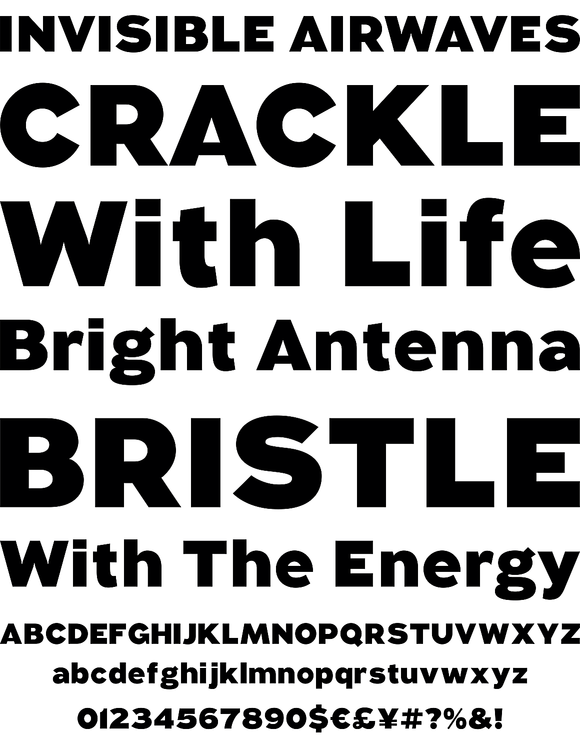
A modern classic. Augustus is a hefty sans serif that combines classical humanist elements and precise geometry. With racehorses and typography, lineage is everything, and Augustus is from good stock. The trained eye will detect a sprinkling of 19th centu...
A modern classic. Augustus is a hefty sans serif that combines classical humanist elements and precise geometry. With racehorses and typography, lineage is everything, and Augustus is from good stock. Karl Frankowski paired the charisma of Morris Fuller Benton's Eagle Bold with the flair of Zuzana Licko's Dogma. The trained eye will detect a sprinkling of 19th century wood type in there as well. He named Augustus after Augustus Gloop, that alarming glutton of a child infamously expelled from the Chocolate Factory.
Five years is a maddening amount of time to spend developing a single-weight typeface. That is how long it took one Karl Frankowski to release his first commercially available typeface and the attention to detail really paid off.
Augustus is now a complete international character set with a gang of whipped alternates. A half decade ago, however, it was 26 uppercase letters designed for a one-off poster. After hundreds of rounds of refinement, the rationalist that lives deep inside surfaced, and he developed a less flamboyant form for broader applications. It should be noted that this is no story of compromise. In the years since he began Augustus, the opentype font format took hold, which enabled him to retain the original swash characters as stylistic alternates.